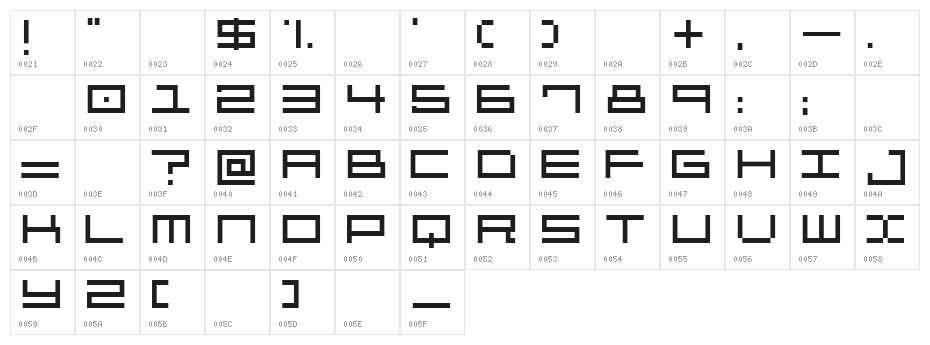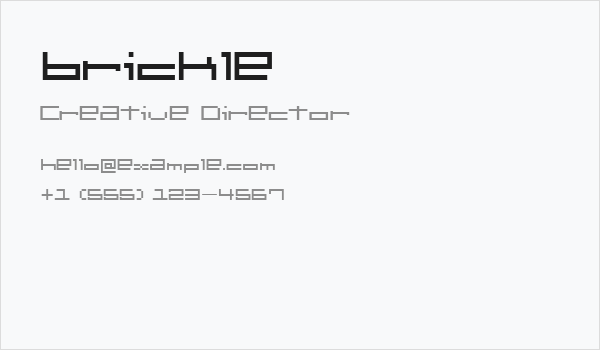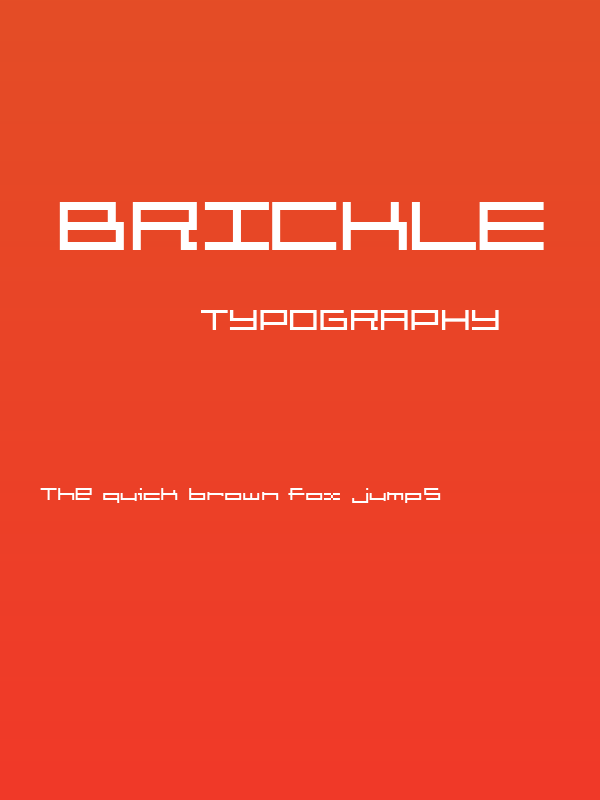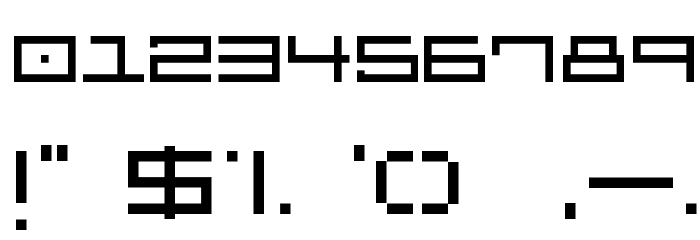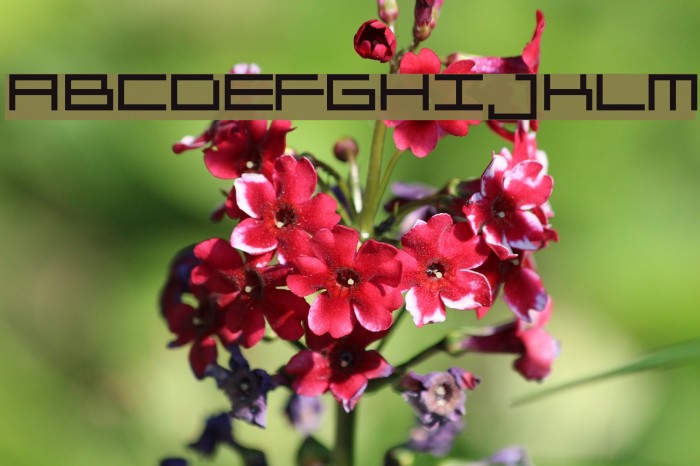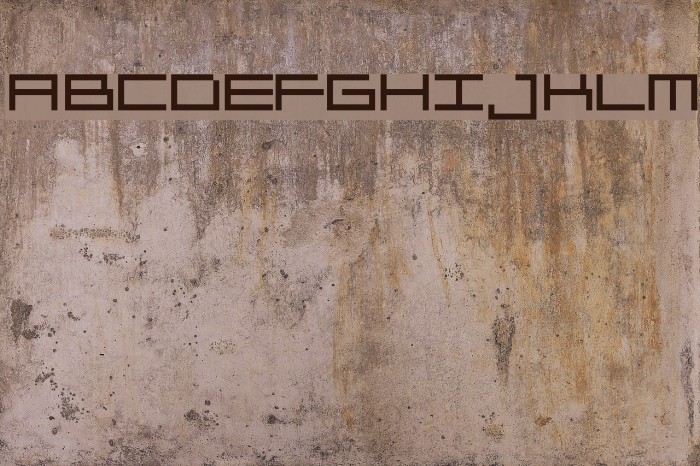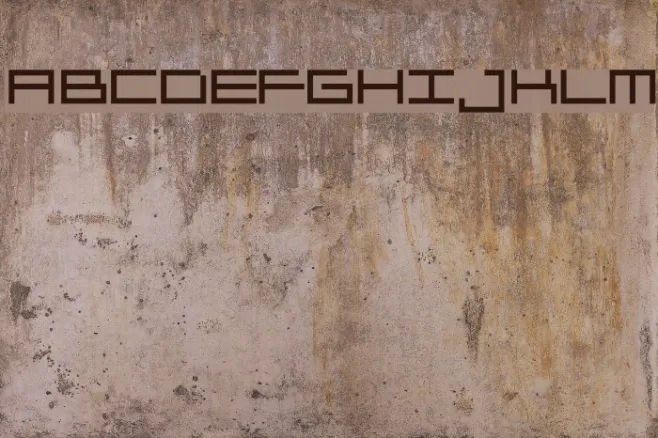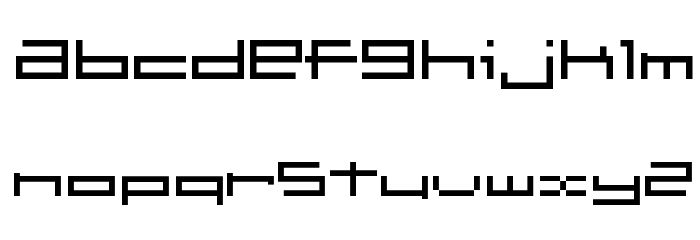
brickle Font
brickle Description
This font features a geometric, blocky design with a digital, pixelated appearance. Each character is constructed with sharp, angular lines, giving it a distinctly modern and technological feel. The uniformity in height and width across characters contributes to a cohesive and structured look. The uppercase and lowercase letters maintain a consistent style, with the lowercase slightly smaller but equally angular. The numerals and special characters follow the same design principles, ensuring a seamless integration with the alphabet. This font is particularly suited for digital displays, gaming interfaces, or any project requiring a futuristic aesthetic.
| Proposed Projects | Ideal for digital displays, gaming interfaces, tech branding, and futuristic designs. |